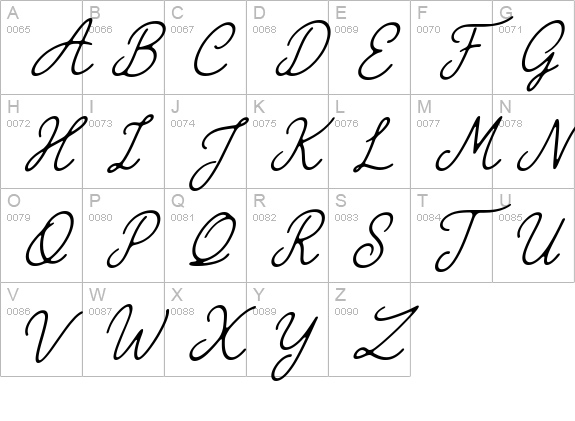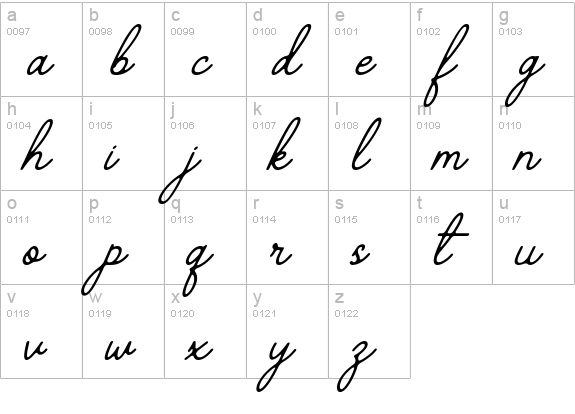
The Grateful Script | 4 Fonts Font Details
The Grateful Script | 4 Fonts is a free for personal use font in the Script > Handwritten category, designed by Yusron Billah. It has been downloaded 221 times and is available for Windows, Mac and Linux.
The Grateful Script font offers a harmonious blend of elegance and playfulness, making it a versatile choice for various design projects. With its four unique styles, this font exudes a sense of gratitude and warmth, perfect for conveying heartfelt messages or adding a touch of sophistication to any creative endeavor. Whether you're designing invitations, greeting cards, or branding materials, The Grateful Script font is sure to captivate your audience with its fluid strokes and graceful curves.